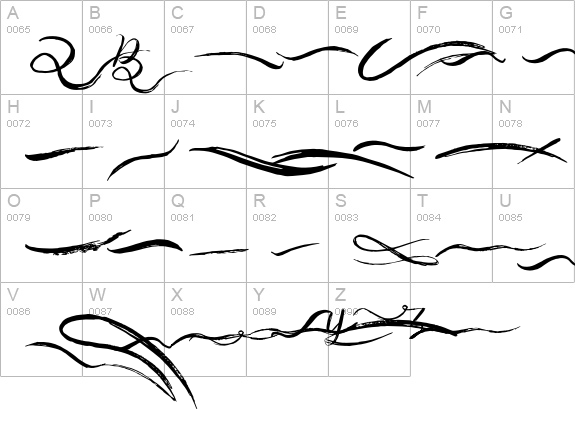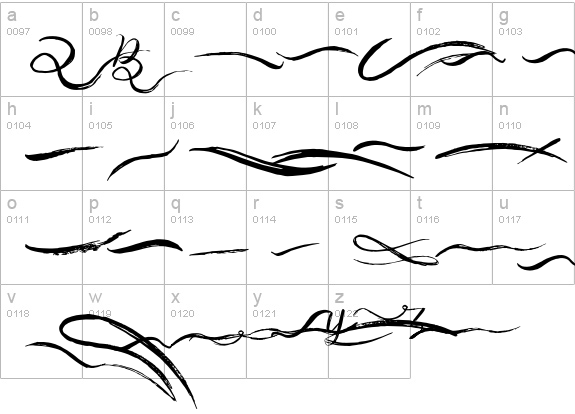
Holy Mountain Swooshes OTF Font Details
The Holy Mountain Swooshes OTF font is a stunning and versatile typeface that exudes elegance and sophistication. Its intricate swooshes and unique design make it perfect for adding a touch of creativity to your projects. Whether you're working on a logo, branding materials, invitations, or any other design project, this font will surely make a statement. The Holy Mountain Swooshes font is not only visually captivating but also incredibly easy to work with. Its OTF format ensures smooth compatibility with various design software, allowing you to effortlessly incorporate it into your creations. With its wide range of swoosh variations, this font offers endless possibilities for customization and experimentation. And the best part? The Holy Mountain Swooshes OTF font is completely free to download at FontsMarket.com. So go ahead and elevate your designs with this exquisite font today!